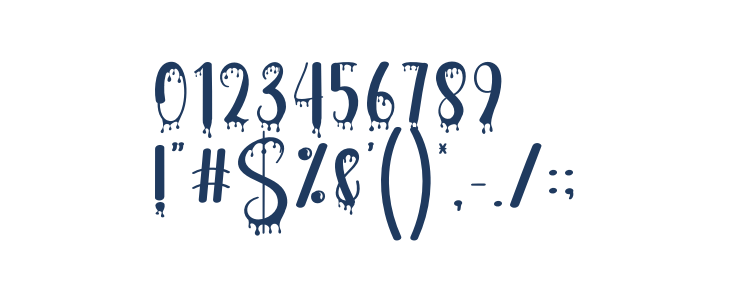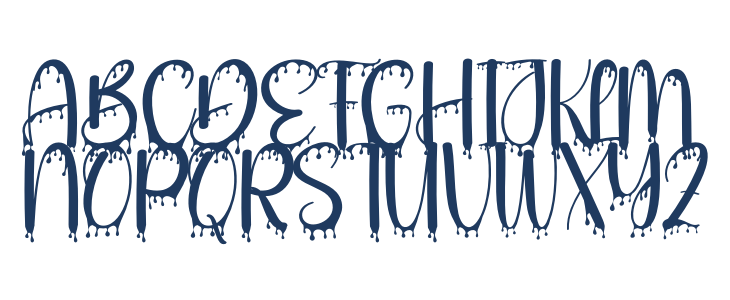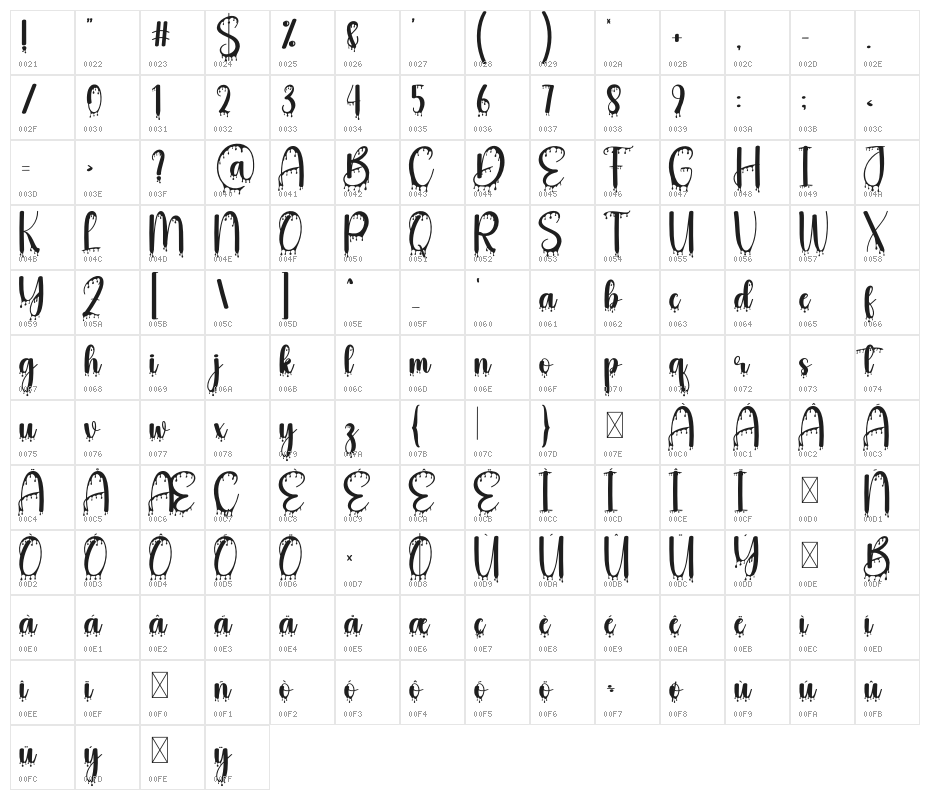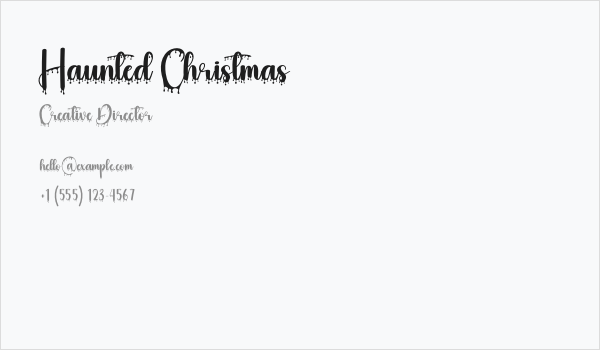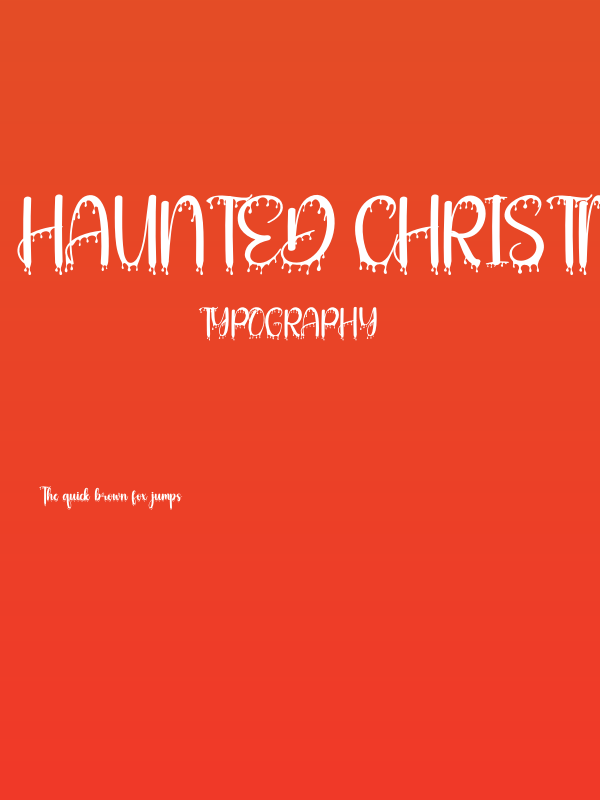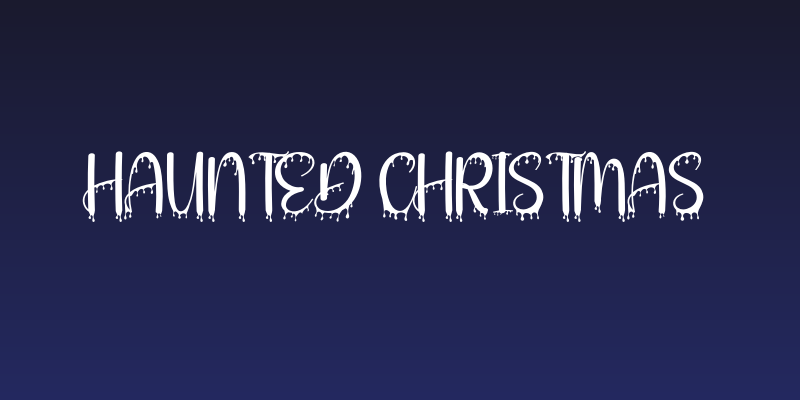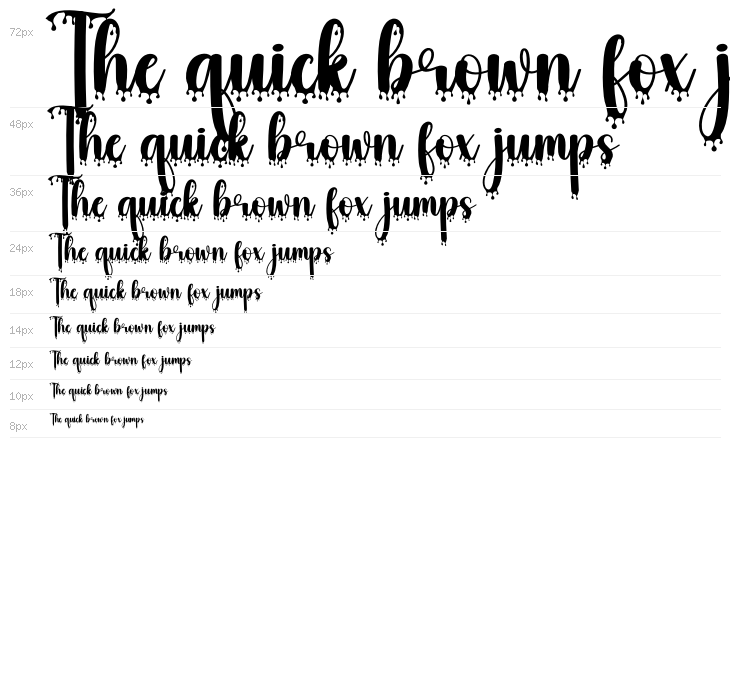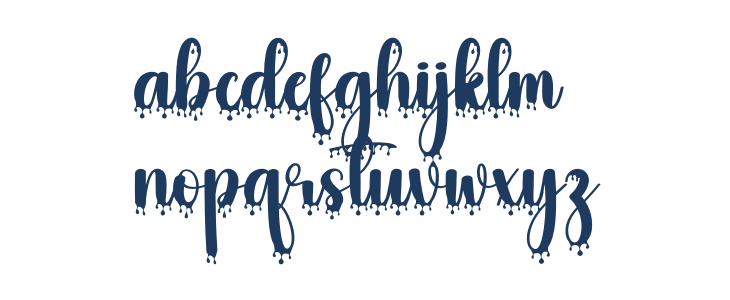
Haunted Christmas Font
Haunted Christmas Description
A playful, decorative script font with dripping elements at the bottom of each character, evoking a spooky or festive atmosphere. The letterforms are rounded and fluid, with a mix of thick and thin strokes, and the dripping effect is consistent across uppercase, lowercase, numbers, and symbols.
| Overall Style | Decorative, Playful, Spooky |
| Use Case | Headlines, Posters, Event Invitations, Themed Logos |
| Proposed Projects | Halloween invitations, haunted house posters, themed party flyers, festive holiday graphics, children's event branding. |